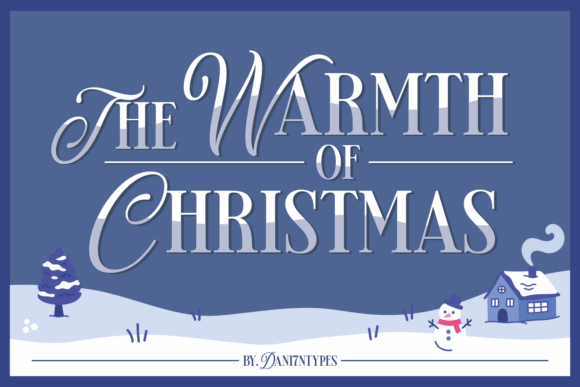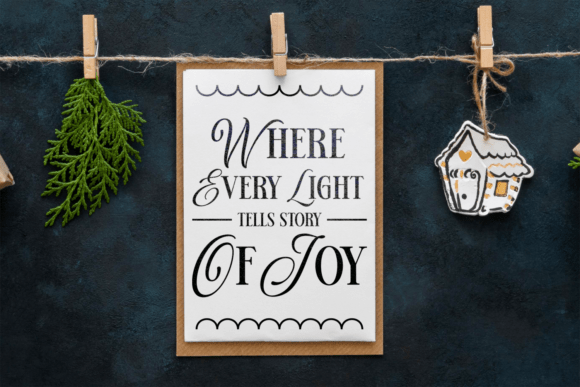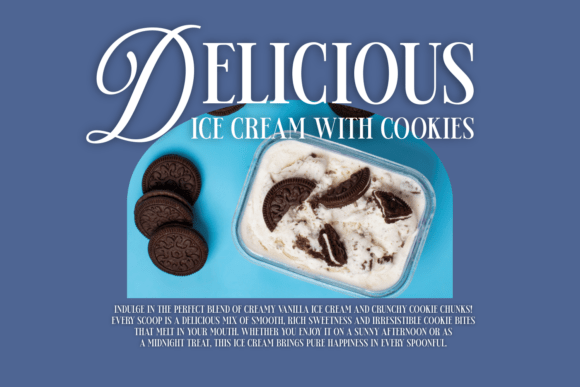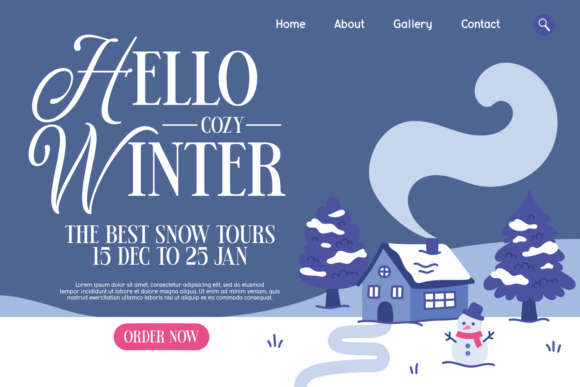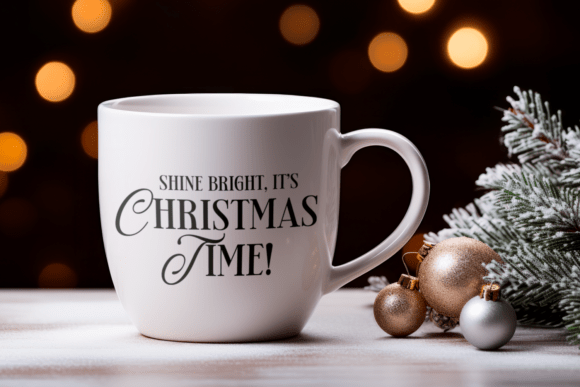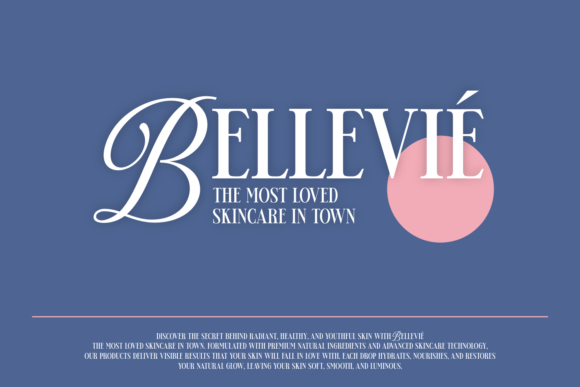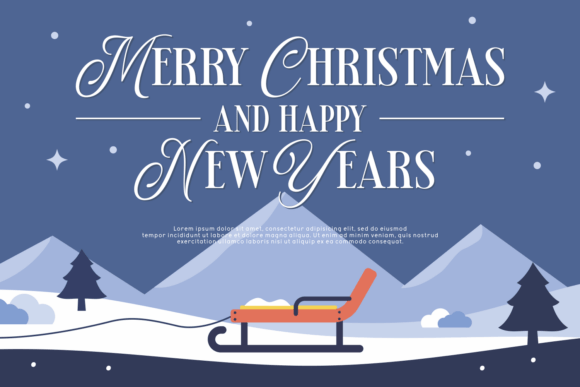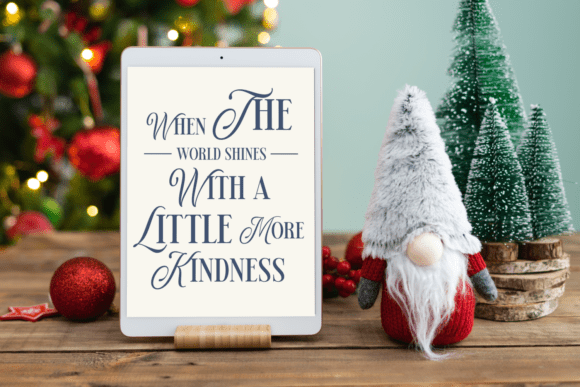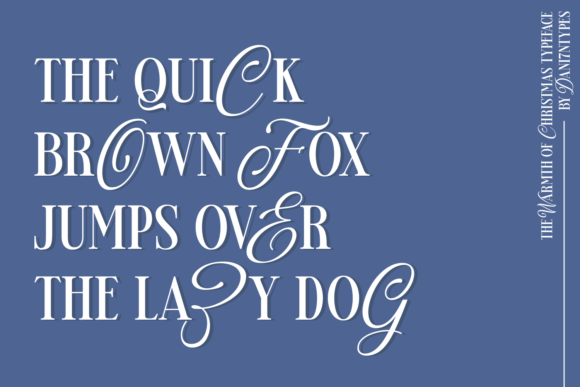
The Warmth of Christmas Font
The Warmth of Christmas – Elegant Holiday Display Font
Bring the cozy spirit of the holiday season into your designs with The Warmth of Christmas.
This beautifully crafted display font blends smooth script touches with elegant serif characters, creating a timeless Christmas feel that is warm, joyful, and full of charm.
Each letter is designed with fine details, giving your work a premium and festive look. Perfect for a wide range of holiday-themed projects such as greeting cards, quotes, invitations, branding, packaging, posters, t-shirts, and social media graphics.
Spread love, joy, and the magical warmth of Christmas in every design you make with The Warmth of Christmas. It is the perfect font to make your holiday creations shine bright.
Make your Christmas moments beautifully unforgettable!